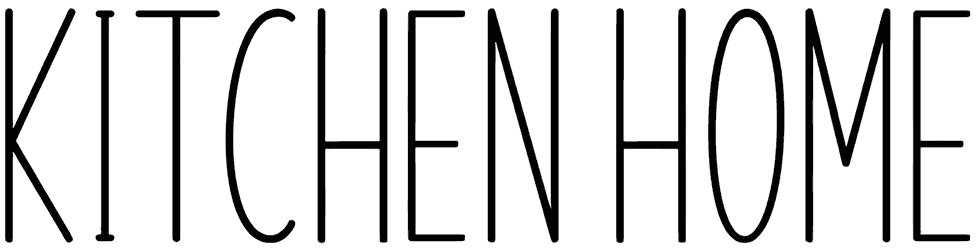
Kitchen Home Font
Minimal and modern faces can be used for a large number of designs with diverse themes and convey a sense of trust and intimacy. Kitchen Home is a handwritten font that will exactly convey this sense, like its name. With…
Minimal and modern faces can be used for a large number of designs with diverse themes and convey a sense of trust and intimacy. Kitchen Home is a handwritten font that will exactly convey this sense, like its name. With no lowercase, this nice font can display designs such as ads, headlines, illustrations, or similar.